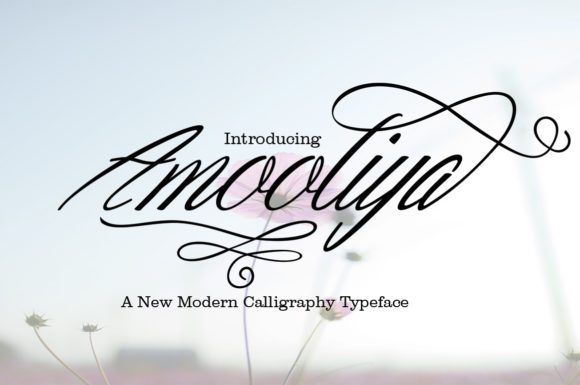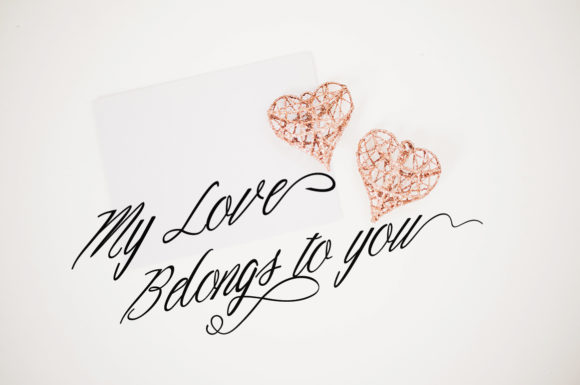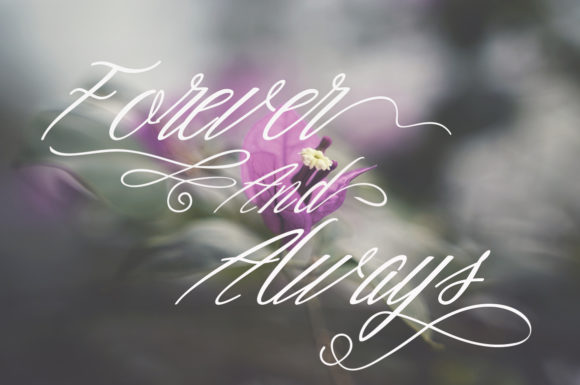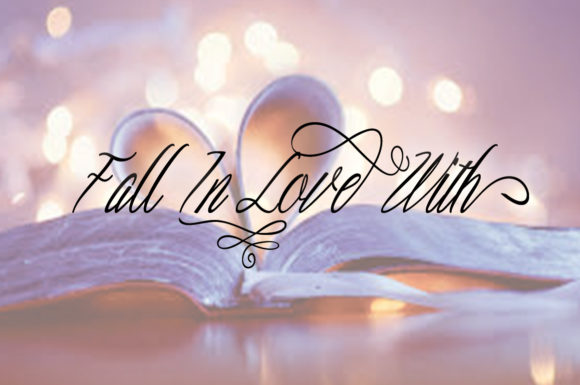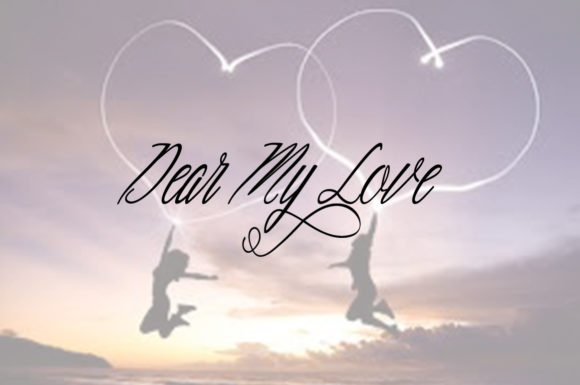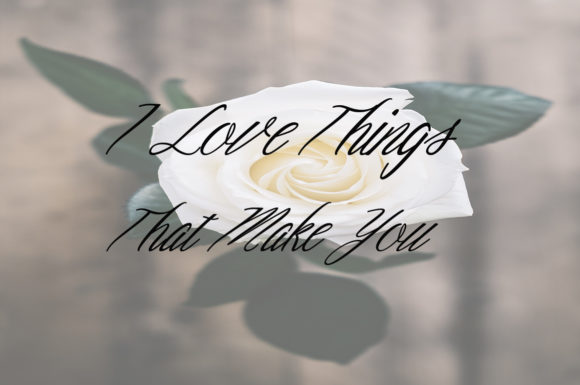
About Amooliya Font
The Amooliya is an amazing brush script. It has modern calligraphy which can be used to add a feminine touch to your designs.
It’s perfect for headings, logos, wedding invitations, t-shirts, letterheads, signage, labels, news, posters, badges, and much more!